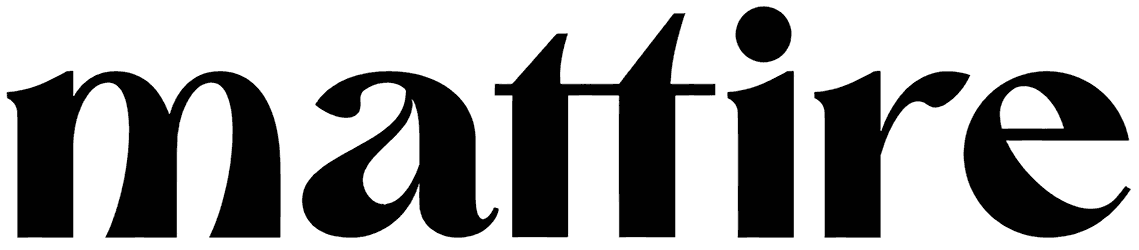
Mattire Font
Welcome to a serif font, Mattire that comes with a sense of friendliness, closeness, modernity, and momentum. Its versatile design makes it sparkling for a variety of graphic content including e-books, applications, gift cards, business cards, and banners. Beginner graphic designers should ignore this lack of numbers or punctuation and just try to get the best out of it.